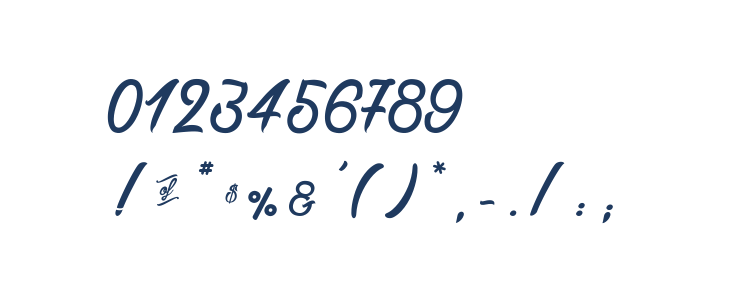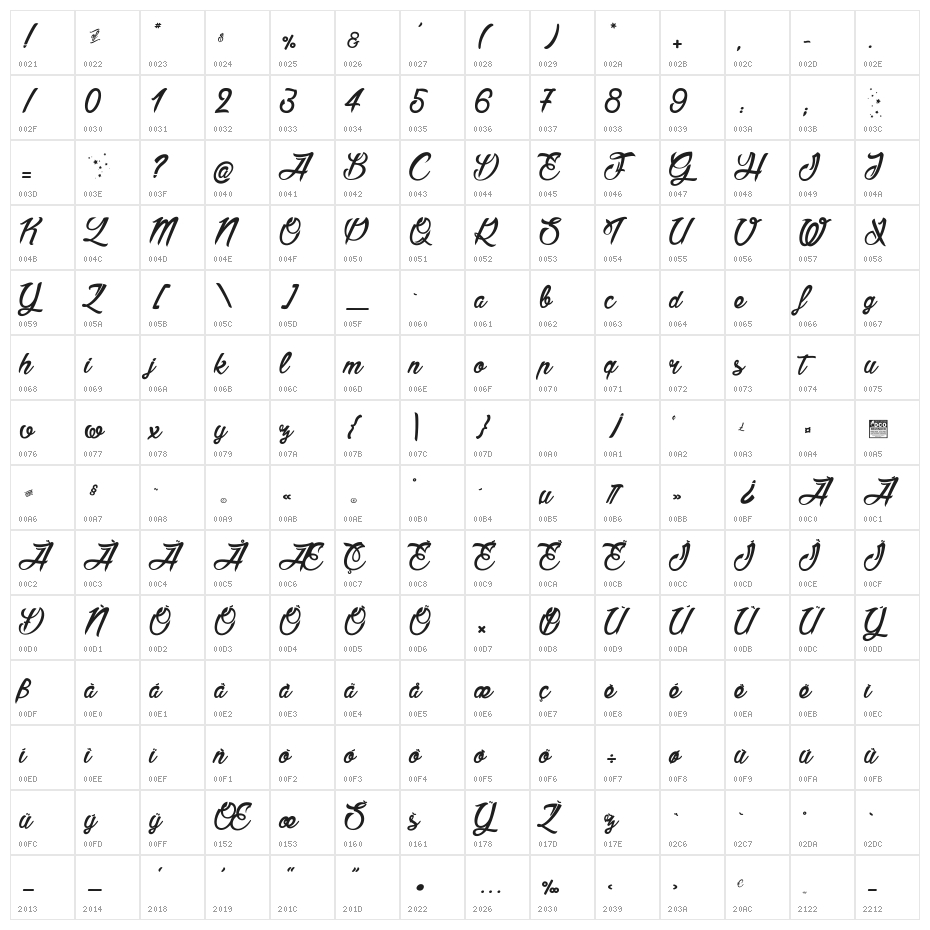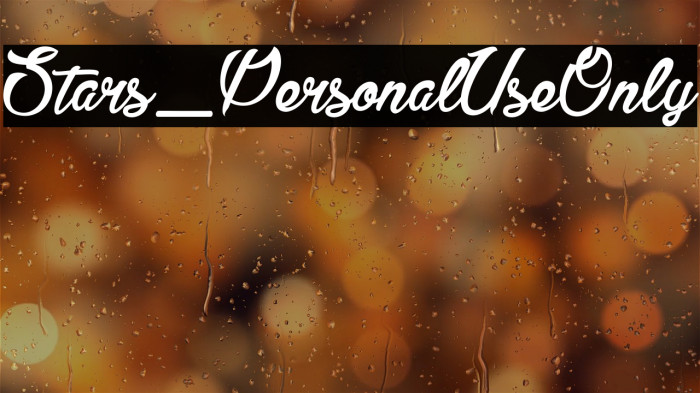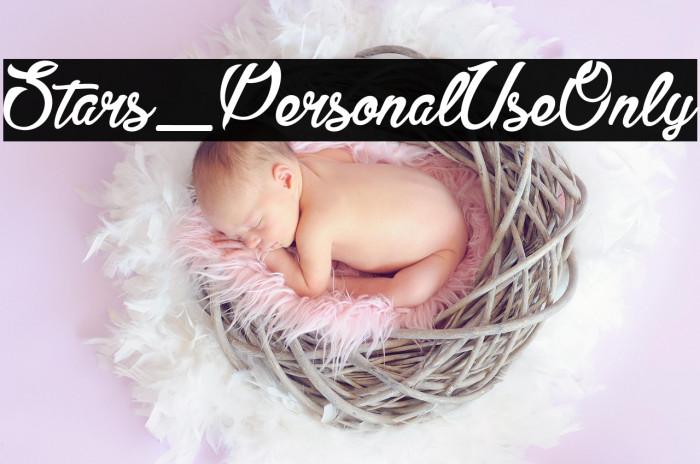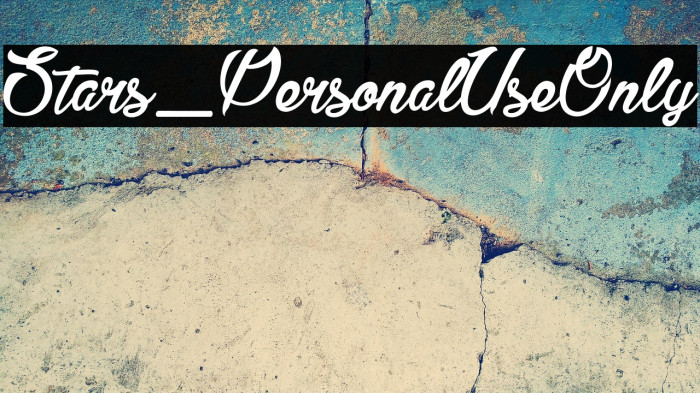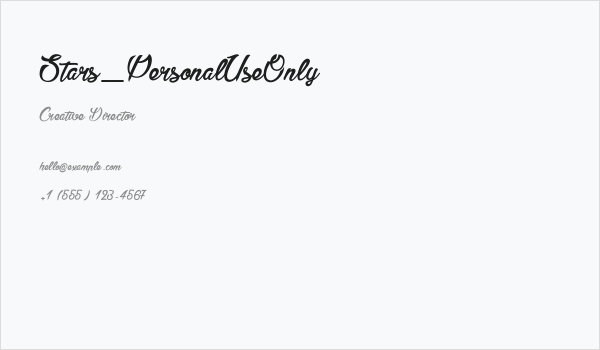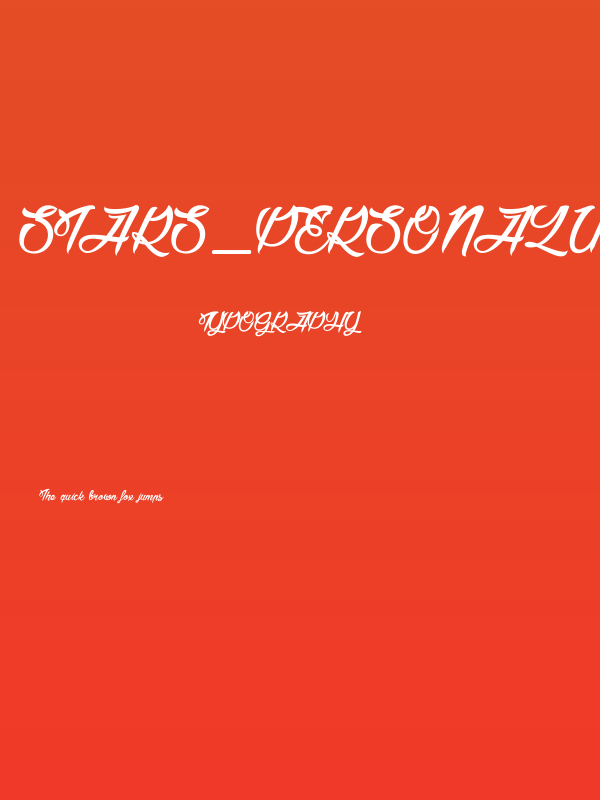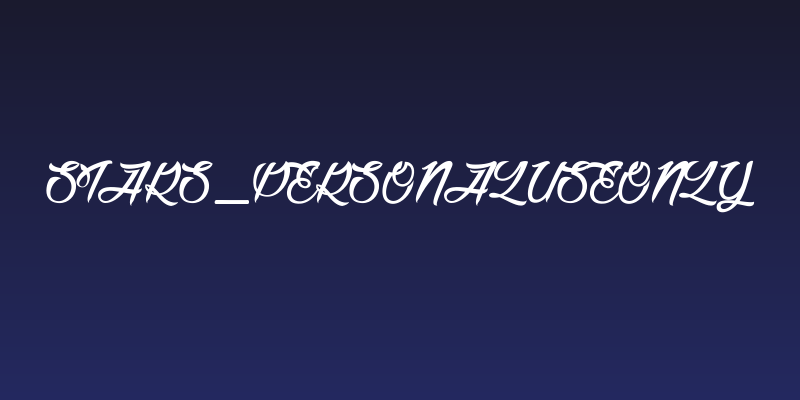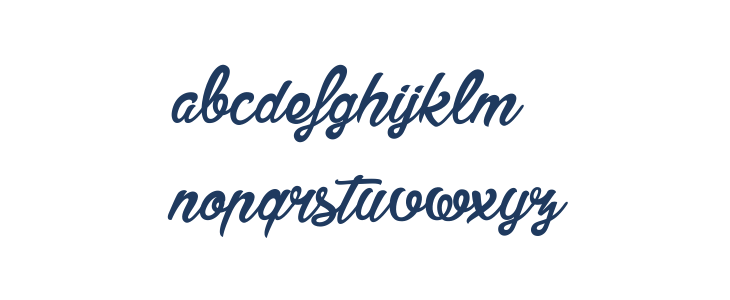
Stars_PersonalUseOnly Font
Stars_PersonalUseOnly Description
This font features a bold, cursive style with a flowing, handwritten appearance. The uppercase letters are ornate and slightly slanted, giving a sense of elegance and movement. The lowercase letters maintain a consistent flow, complementing the uppercase with smooth transitions and rounded forms. Numbers are styled to match the cursive theme, with a playful yet sophisticated look. Special characters are creatively integrated, maintaining the overall aesthetic. The font's bold strokes and consistent weight make it highly legible while retaining its decorative charm.
| Use Case | Logos, Headlines, Invitations |
| Proposed Projects | Ideal for wedding invitations, greeting cards, branding projects, and elegant signage. |